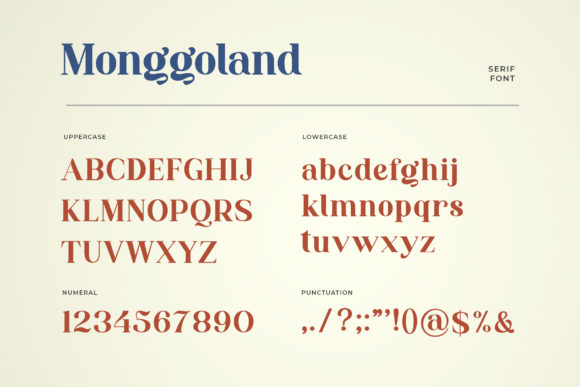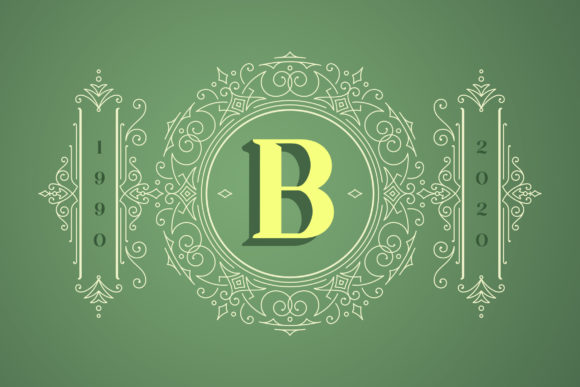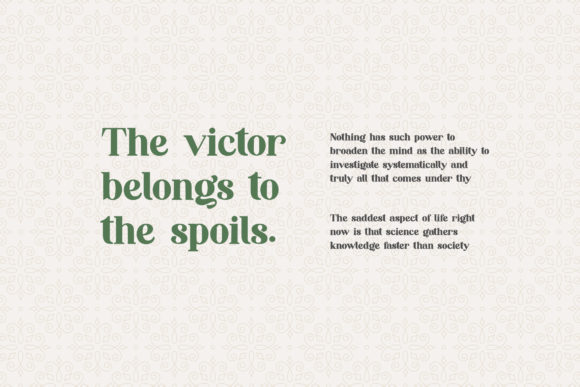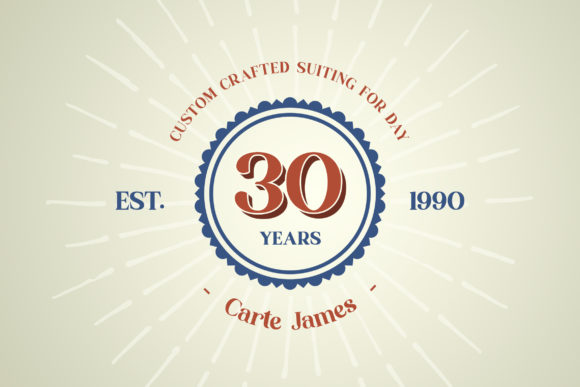
Introduction to Monggoland Font
Monggoland is bold and natural serif font.
This font is perfect for any modern project including branding designs, logos, invitations, website designs, and much more .
Key Features of Monggoland Font
Why Choose Monggoland Font?